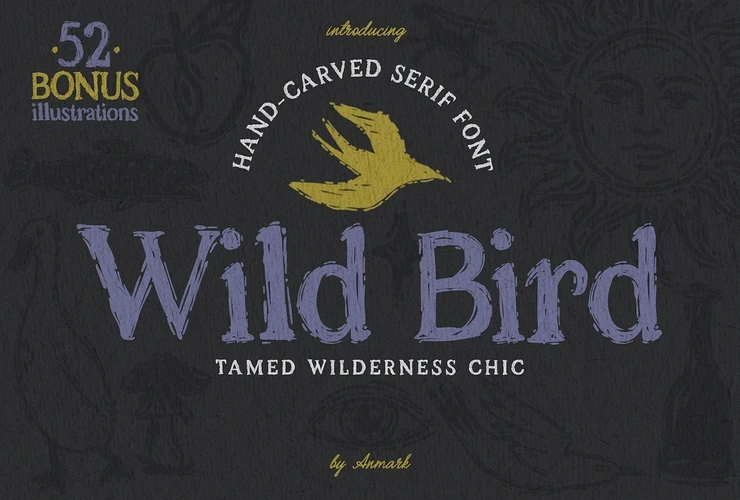
Unleash the Spirit of Adventure with Wild Bird Hand-Crafted Font
Step into a world of untamed beauty and intrepid exploration with the Wild Bird Hand-Crafted Font by Anmark Studio. This rugged, organic serif font is designed to capture the spirit of adventure and the timeless elegance of the natural world. Perfect for those seeking a versatile typeface with a hand-forged aesthetic, Wild Bird brings a touch of wilderness to any design project.
Key Features of Wild Bird Hand-Crafted Font
The Wild Bird font is a testament to the art of hand-carved typography, offering a robust and dynamic design that stands out in various applications:
Rugged Organic Aesthetic: With its sturdy serifs and dynamic strokes, Wild Bird exudes a natural, hand-crafted elegance that is both timeless and contemporary.
Versatile Applications: Ideal for rustic logos, editorial layouts, and eco-conscious brand identities, this font radiates an adventurous energy that transports viewers to unbounded horizons.
Ideal Uses for Wild Bird Hand-Crafted Font
The Wild Bird font is perfect for a wide range of design projects, especially those aiming to evoke a sense of adventure and natural beauty:
Branding: Create outdoor gear logos or eco-friendly brand identities that resonate with a free-spirited soul.
Editorial Design: Enhance editorial layouts with a touch of rugged elegance and timeless appeal.
Digital Media: Infuse your website, social media posts, and digital content with an adventurous and authentic aesthetic.
Multilingual Capabilities
Why Choose Wild Bird Hand-Crafted Font?
Choosing Wild Bird means embracing a font that embodies the essence of adventure and the beauty of the natural world. Its hand-forged aesthetic and versatile applications make it a standout choice for designers looking to infuse their projects with an authentic, adventurous spirit.